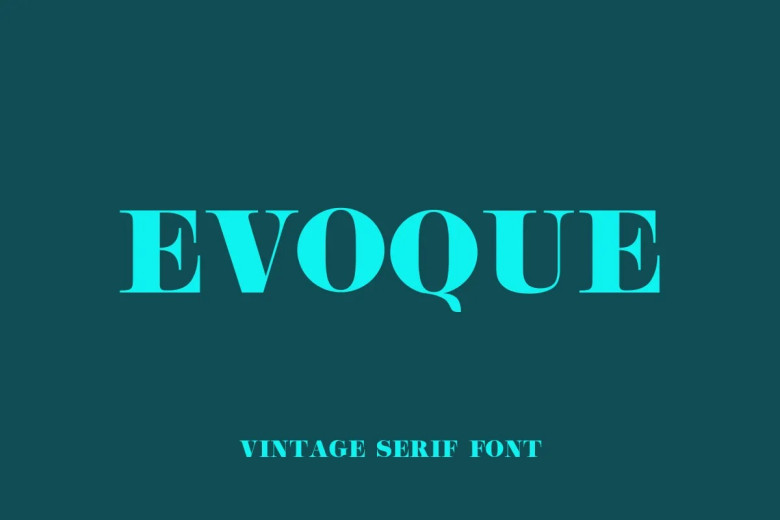
Evoque Font
Evoque Font is a serif font family with uppercase letters. Use Evoque for bold headlines and stylish vintage-style designs with captivating curves and lines providing soft elegance for wedding cards, festival cards posters quotes etc.
Evoque Serif Font